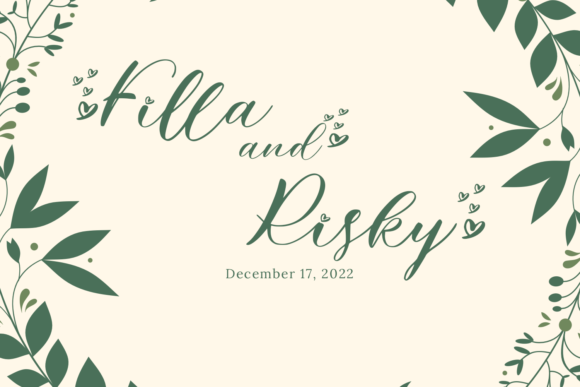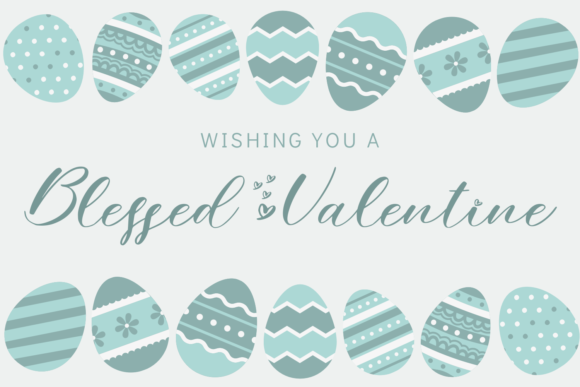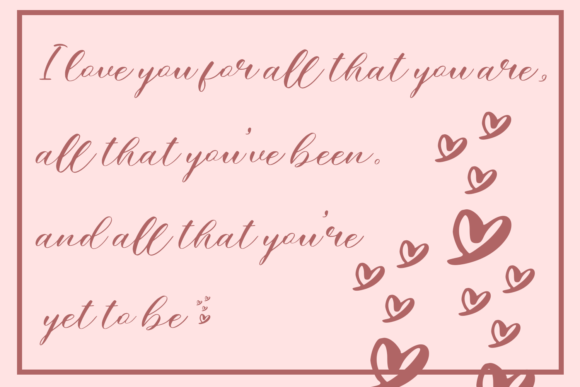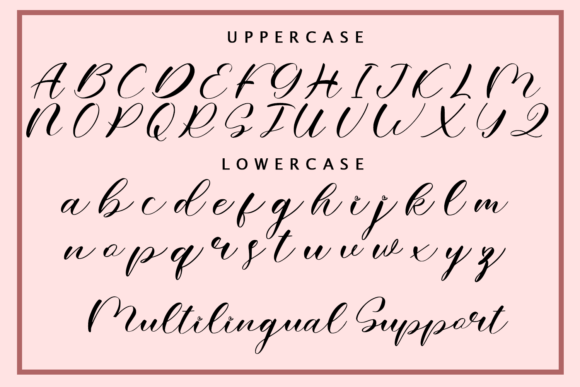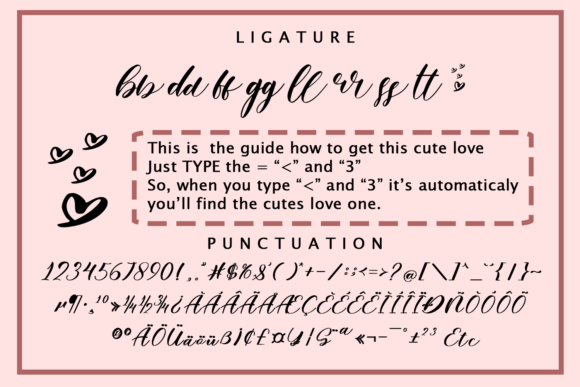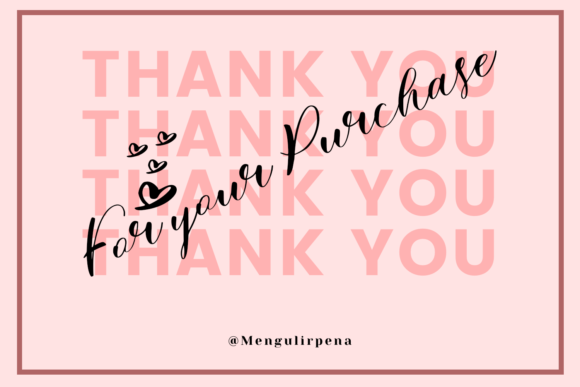
Introduction to Fallins Font
Fallins is a delicate, elegant and flowing handwritten font.
It has beautiful and well balanced characters and as a result, it matches a wide pool of designs Get inspired by its playful romantic charm and notice how it makes them come alive.
Key Features of Fallins Font
Fallins Font offers exceptional quality and versatility, making it a valuable addition to your design toolkit. Whether you’re creating for personal projects or commercial use, Fallins Font delivers professional results.